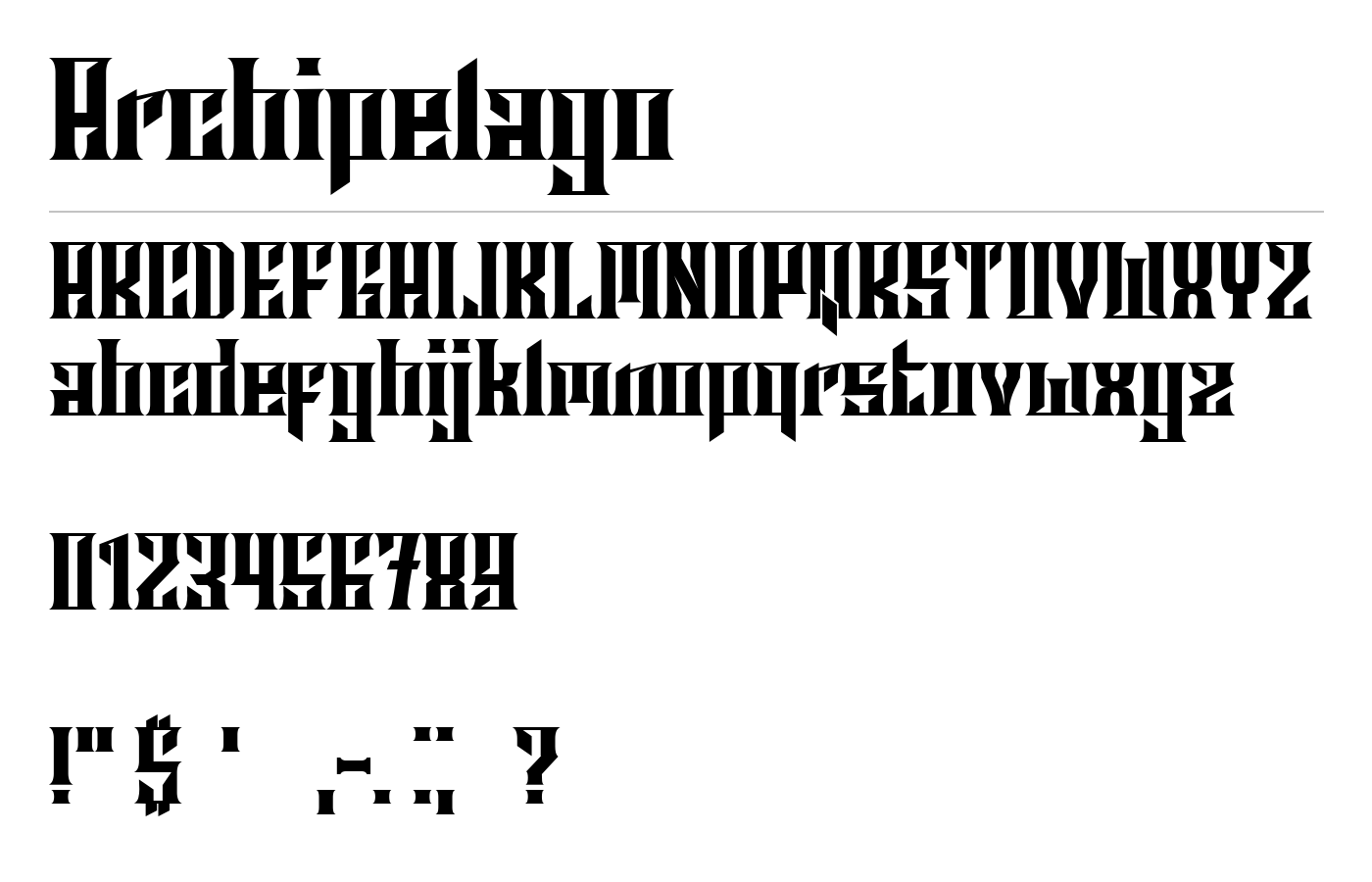
Archipelago is a bold, condensed serif font with a strong modern Gothic influence, featuring high contrast between thick and thin strokes and sharp, angular serifs. Its unique letterforms, combining blocky shapes with intricate cutouts, give it a dramatic, edgy feel that works well for striking headlines, logos, and branding that seek to convey a futuristic or avant-garde vibe. This font is ideal for creative projects that aim to stand out with a distinctive, unconventional style.
Archipelago Font
About Archipelago Font
| Font family | Archipelago Font |